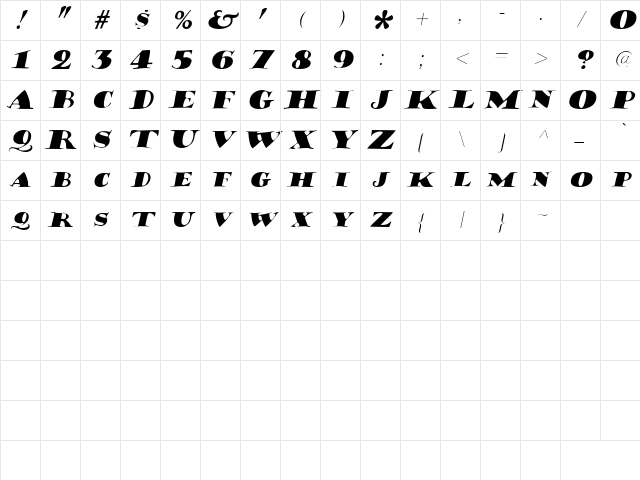
Hermann Italic
Hermann Family
Complete Hermann Italic glyph index. Displaying only characters natively supported by Hermann Italic font.
Design Context for Hermann
Hermann is a composed and adaptable typeface that performs quietly and consistently across a wide range of design contexts. The slanted form adds forward momentum and visual energy.
Pro Tip: Use Hermann for emphasis, pull quotes, and subheadings where its slanted energy can add rhythm to the layout.